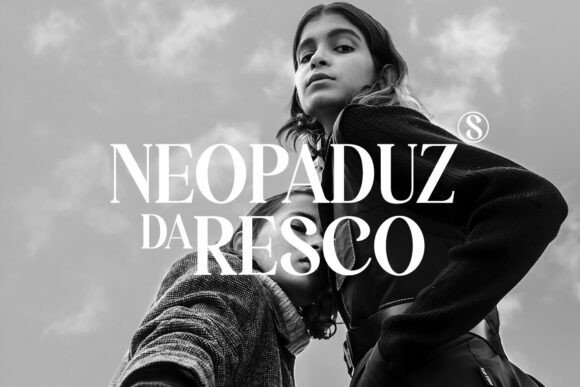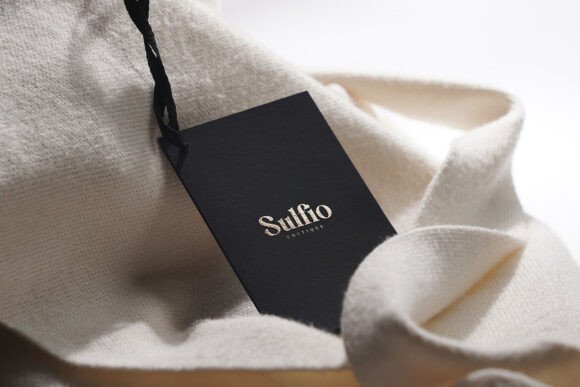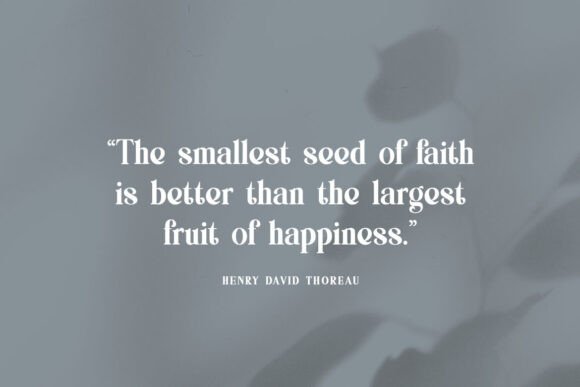
Introduction to Manwards Font
As a designer, there’s nothing quite like the thrill of discovering a new font that perfectly captures the essence of your creative project. For me, it was a late-night search for the perfect serif typeface that led me to stumble upon the Manwards Font. Its unique blend of retro charm and modern sophistication immediately caught my eye, and I knew I had to share it with the world.
With its wide range of applications, from signature and stationery to logo design and magazine covers, the Manwards Font is a valuable addition to any designer’s toolkit. Its high-quality design and transparent background make it a free download that’s perfect for creative projects of all kinds. Whether you’re working on a fashion-related branding project or simply need a stylish font for your next design resource, the Manwards Font is sure to impress.
- Unique characteristics include elegant and modern typography, making it perfect for logos, branding, and digital signage
Honest Review: Manwards Font
I recently stumbled upon the Manwards Font while searching for a high-quality design resource for a creative project. I must say, I was quite impressed with what I found.
- What works well: ✨ The font’s modern and sleek design makes it perfect for a variety of creative projects. It’s also incredibly versatile, suitable for both digital and print applications.
- What works well: ✨ The font’s transparent background allows for seamless integration with any design element, giving creators the freedom to express themselves.
- ⚠️ The font may not be suitable for projects requiring extreme customizability, as it’s primarily designed for general use.
- ⚠️ Some users may find the font’s modern aesthetic to be too trendy, which could lead to potential compatibility issues with certain design styles.
Overall, I’m quite impressed with the Manwards Font and would highly recommend it to designers seeking a high-quality, versatile design resource.
The Manwards Font is a high-quality, versatile design resource ideal for creative projects. It’s available for free download and features a transparent background, making it easy to integrate into various design applications.
The Manwards Font is suitable for a variety of design projects, including business cards, brochures, posters, and social media graphics. Its high-quality design and transparent background make it an ideal choice for creative professionals.
To get the most out of the Manwards Font, experiment with different font sizes, colors, and styles to create visually appealing designs. Additionally, consider combining the Manwards Font with other design elements, such as images and graphics, to create a cohesive and engaging visual identity.